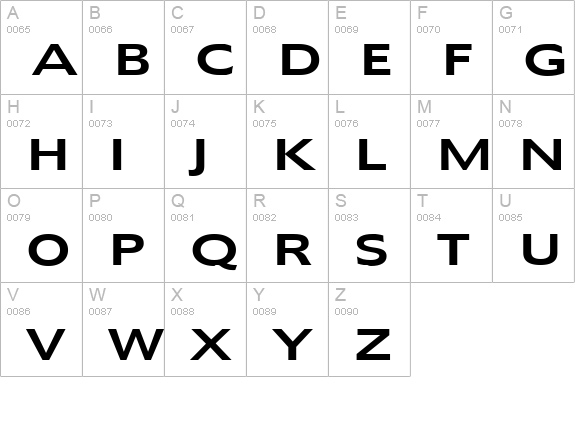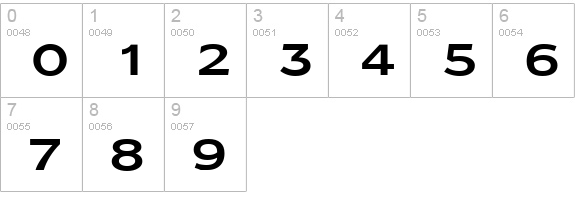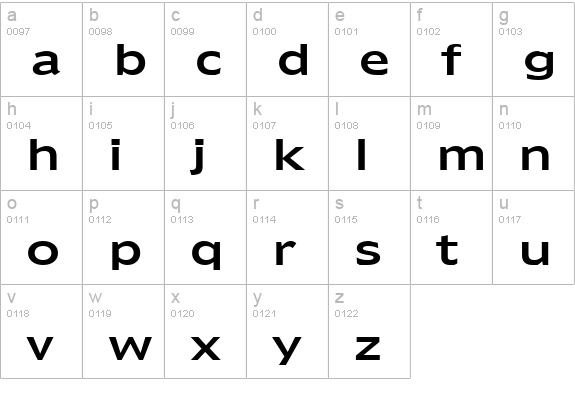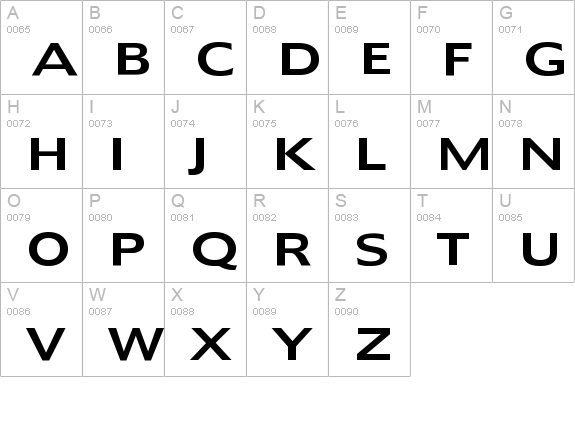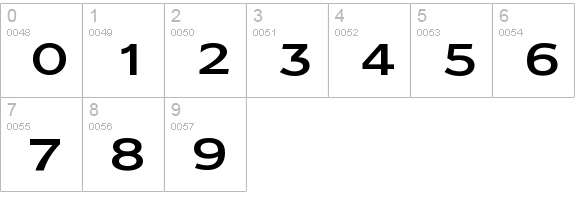
Adams Wide Normal is the standard, neutral, extended-width variant in the Adams typeface family \xE2\x80\x94 well suited to general body text, paragraphs, and standard typographic work.
Adams Wide Normal font is a versatile and modern typeface that perfectly blends simplicity with sophistication. With its clean lines and wide proportions, this font exudes professionalism and elegance. Whether used for headings, body text, or logos, Adams Wide Normal adds a touch of contemporary style to any design project. And the best part? Adams Wide Normal is available for free download at FontsMarket.com. This means you can easily incorporate this stylish font into your projects without any additional cost. Don't miss out on the opportunity to enhance your designs with Adams Wide Normal font, now just a click away at FontsMarket.com.